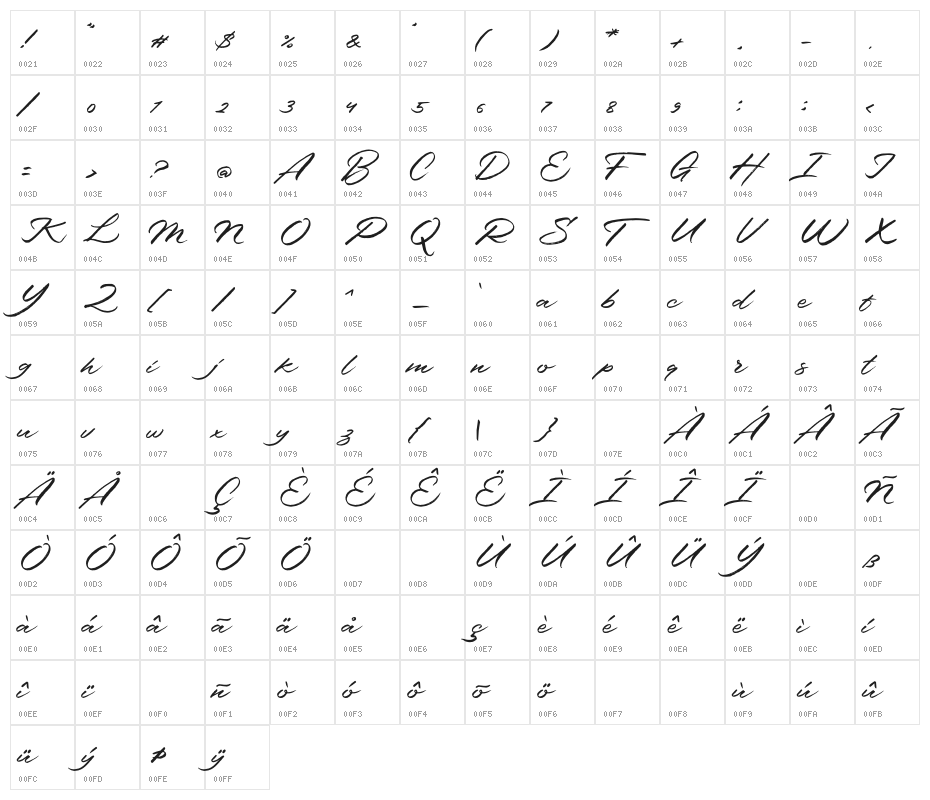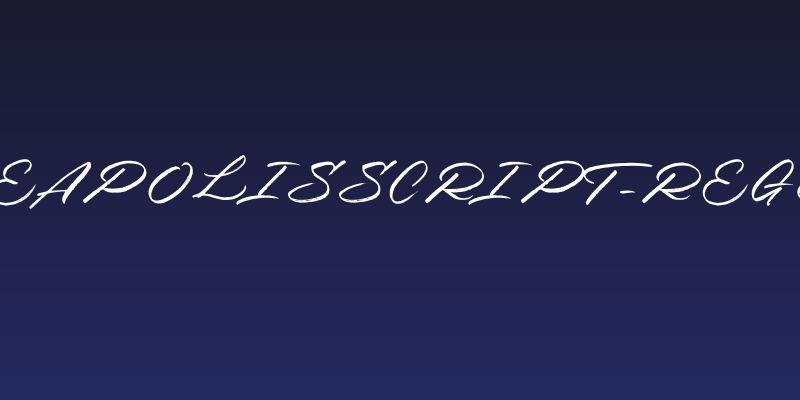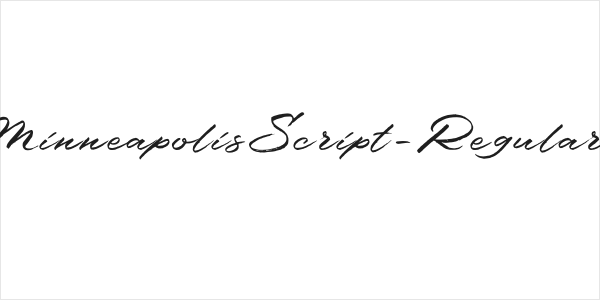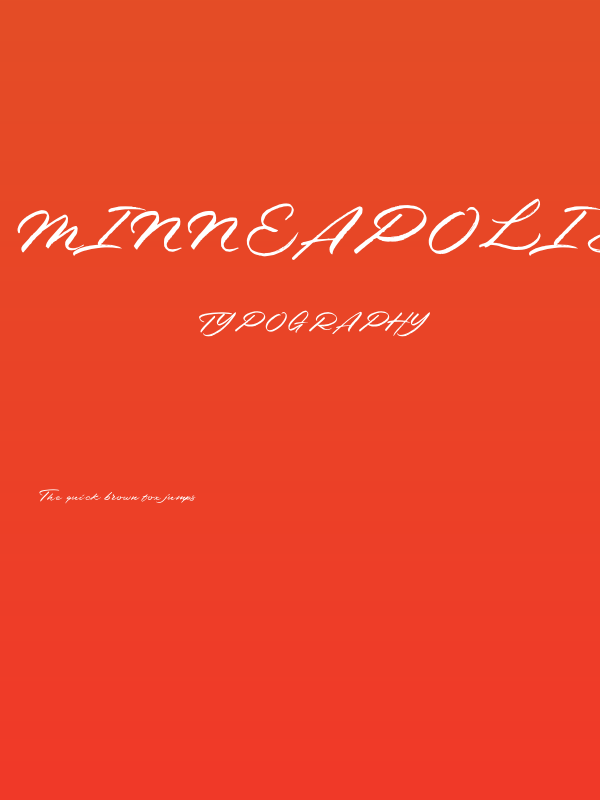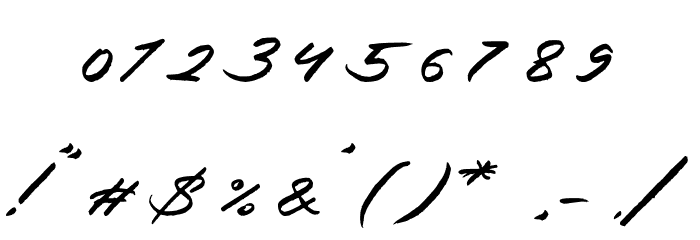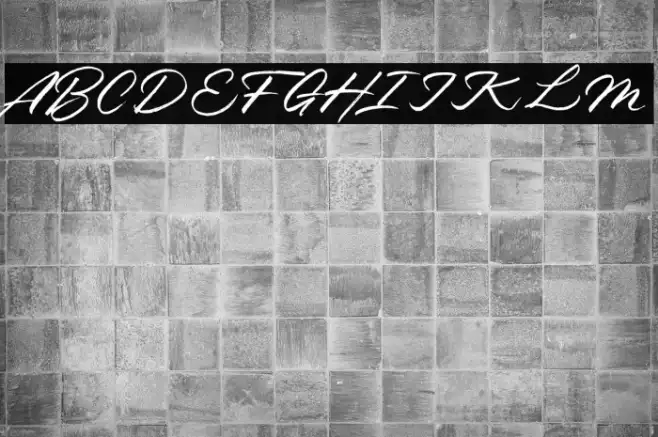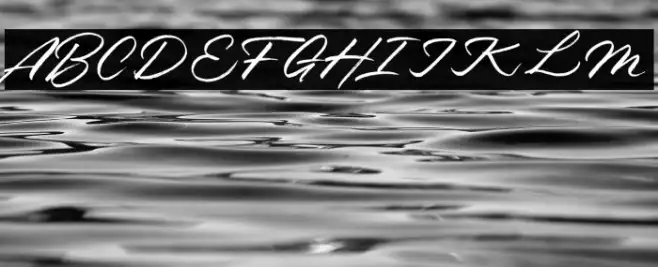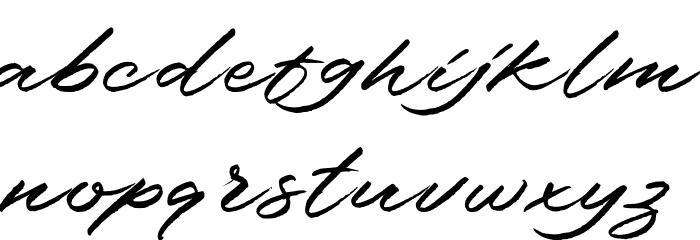
MinneapolisScript-Regular Font
MinneapolisScript-Regular Description
This elegant script font features a fluid and graceful design, characterized by its flowing cursive style. The letters are interconnected, creating a seamless and continuous look that mimics natural handwriting. The font exhibits a moderate contrast in stroke thickness, with thin upstrokes and thicker downstrokes, adding to its sophisticated appearance. The characters are slightly slanted, enhancing the dynamic and lively feel of the text. The font includes a full set of uppercase and lowercase letters, numerals, and a variety of special characters, making it versatile for various design needs.
| Use Case | Logos, Invitations, Personal stationery |
| Proposed Projects | Ideal for wedding invitations, elegant branding, personal stationery, and greeting cards. |